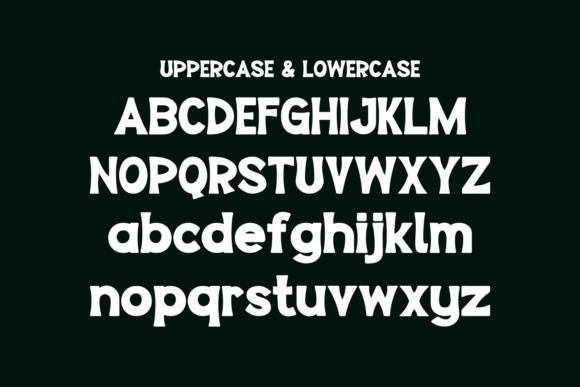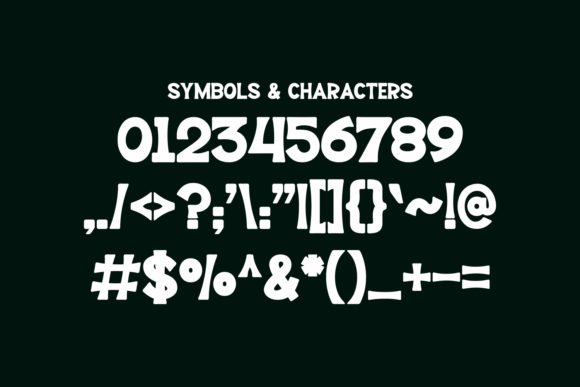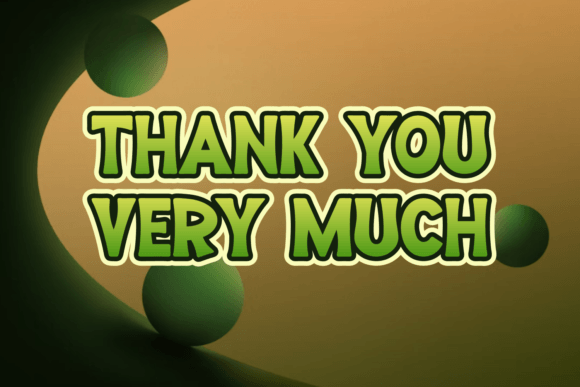
When Typography Meets Quirky Charm
Have you ever found yourself lost in the creative process, searching for the perfect font to bring your design to life? It’s a moment we’ve all been there, scrolling through endless font options, hoping to stumble upon that one special something that sets our work apart. And then, suddenly, it hits you – a font so unique, so full of character, that you just can’t imagine your design without it.
Meet Boigon Font, a display font that embodies this exact feeling. With its quirky charm and versatility, Boigon Font is the perfect addition to any design project, from posters to packaging, and everything in between. Whether you’re a seasoned designer or just starting out, this font is sure to bring a touch of personality to your work, making it stand out in a crowded marketplace.
Key Features of Boigon Font
- Unique Characteristics: Boigon Font features a unique blend of modern and vintage elements, making it suitable for a wide range of design projects.
- Font Weight: Boigon Font comes in multiple weights, including light, regular, bold, and black, allowing designers to choose the perfect weight for their project.
Boigon Font Review
I’ve had the chance to work with the Boigon Font, and I must say it’s a unique addition to any design project. ✨ The bold lines and geometric shapes make it stand out from the crowd, perfect for creating eye-catching headings and titles.
- High contrast ratio makes it easy to read, even in small sizes
- Unique style adds a touch of sophistication and elegance to designs
- Supports a wide range of languages, making it a great option for multilingual projects
- May not be suitable for body text due to its bold nature
- Some users may find it too ornate or distracting
- Lack of italic or oblique styles may limit its versatility
Overall, I think the Boigon Font is a solid choice for designers looking to add some visual interest to their work. While it may not be the best fit for every project, it’s definitely worth considering for headings, titles, and other display text.
Boigon Font is ideal for use in creative and artistic designs, such as:
1. Fashion and beauty branding.
2. Artistic and creative portfolios.
3. Social media graphics and advertising.
Tips for getting the most out of Boigon Font include:
1. Experiment with different font sizes and colors.
2. Use Boigon Font in combination with other creative fonts.
3. Customize the font to fit your brand’s unique style.
Alternatives to Boigon Font
Arial Black is a sans-serif font designed by Robin Nicholas and Patricia Saunders in 1982. It is a condensed version of the Arial font and is often used for headings and titles. It is suitable for use in digital media, such as websites and mobile apps.
Compared to Boigon Font, Arial Black has a similar condensed style, but it lacks the unique, hand-drawn feel of Boigon Font. Arial Black is more suitable for digital use, while Boigon Font is often used for print media.
2. Museo Slab
Museo Slab is a slab serif font designed by Jos Buivenga in 2011. It is a modern take on traditional slab serif fonts and is often used for body text and headings. It is suitable for use in print media, such as books and magazines.
Compared to Boigon Font, Museo Slab has a more formal and traditional feel, while Boigon Font has a more playful and hand-drawn feel. Museo Slab is more suitable for use in print media, while Boigon Font is often used for digital media.